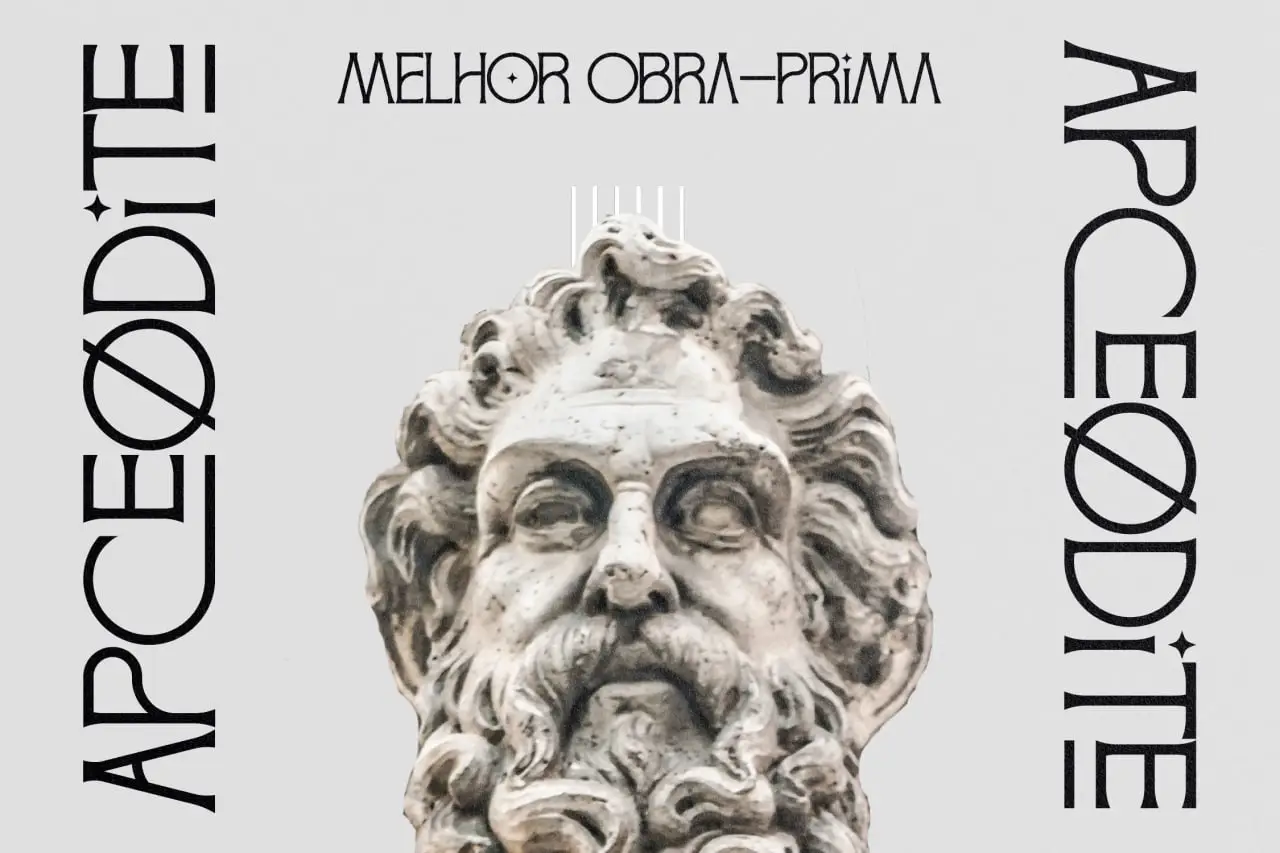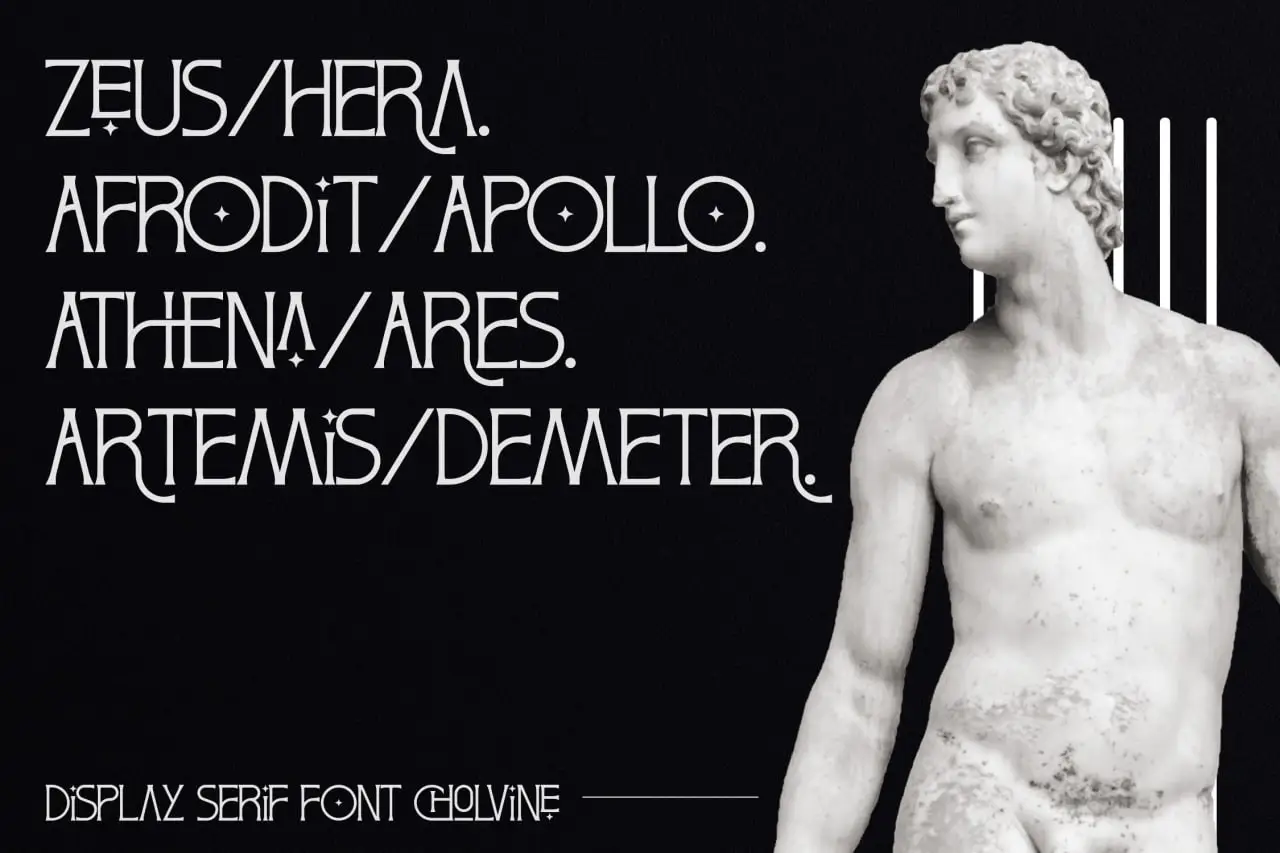
Introducing the Cholvine Font, a beautifully crafted typeface that combines elegance with versatility. This font is perfect for a variety of design projects, from branding to print materials.
- Stylish and modern design
- Multiple weights for flexibility
- Uppercase and lowercase letters
- Numerals and punctuation included
- Styles: Regular, Bold, Italic
This font is ideal for creating logos, branding materials, web design, and print projects. Its clean lines and distinctive style make it a great choice for both professional and personal use.